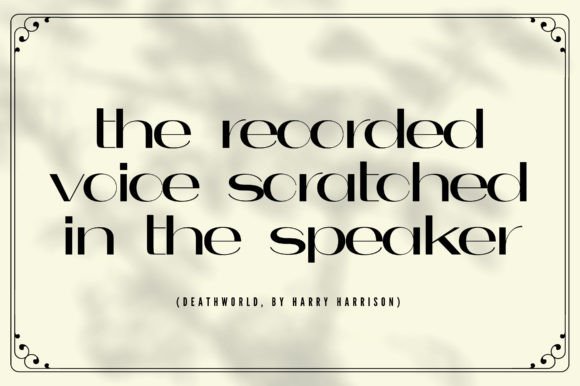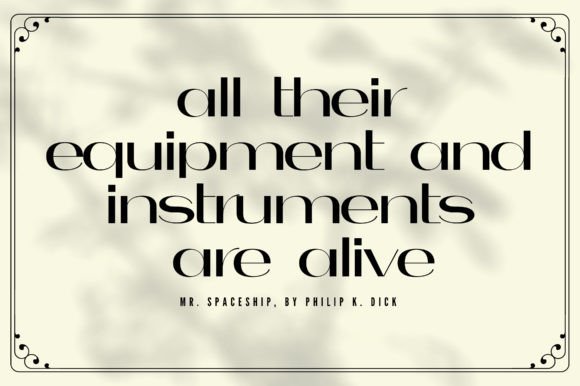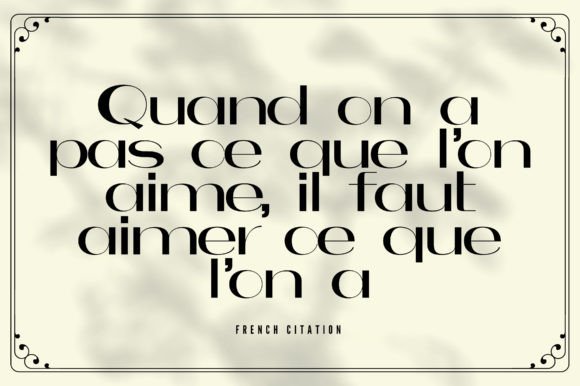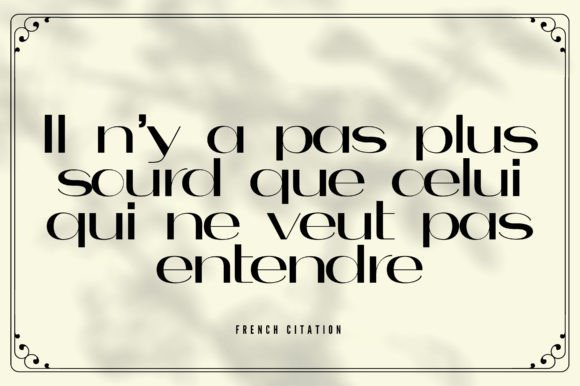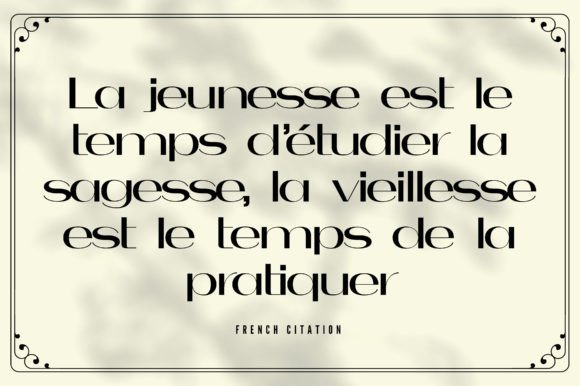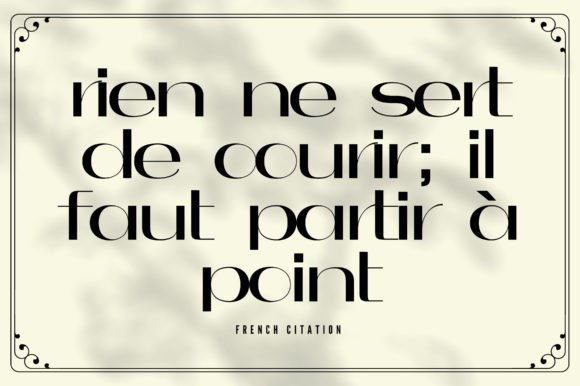
Introduction to Corda Font
Introducing Corda, the ultimate modern sans serif font for those seeking a sleek and sophisticated design.
With over 602 glyphs and a wide range of multilingual support, Corda is the perfect choice for any project that requires a touch of elegance and refinement The minimalist design of Corda is a hallmark of its versatility, making it suitable for a range of applications from branding to editorial design.
Key Features of Corda Font